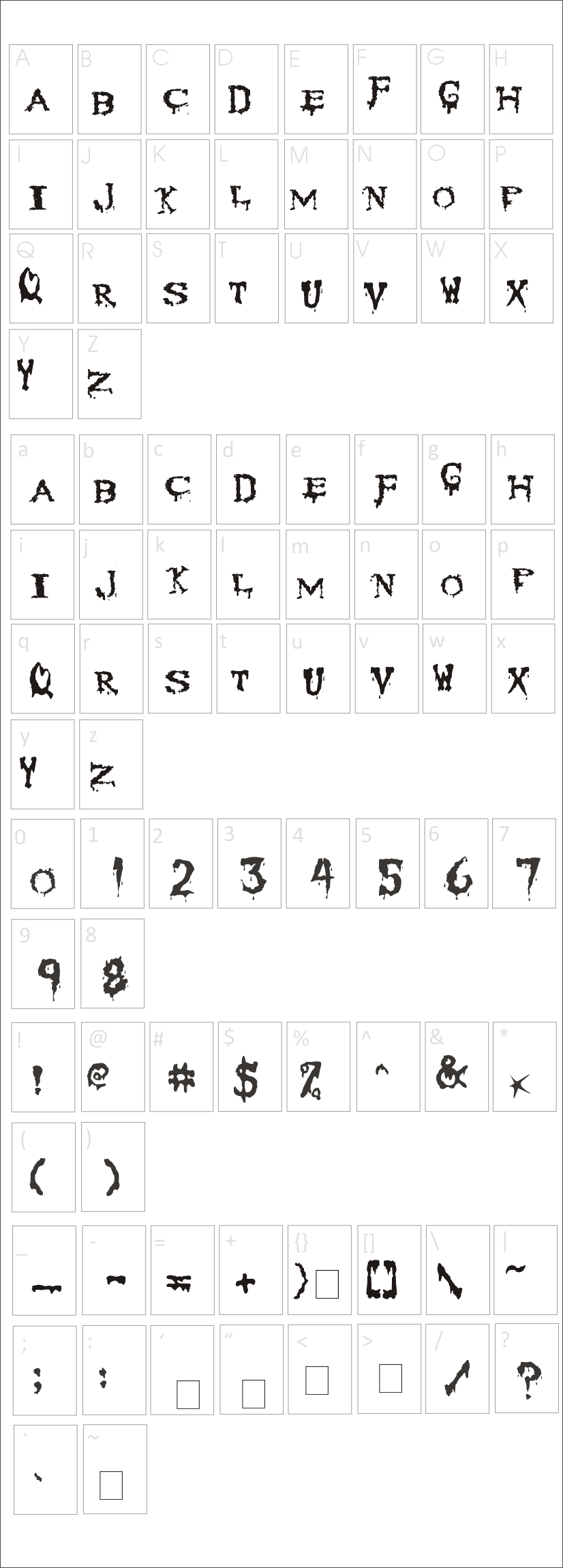
Cannibal Corpse Font is a blood-curdling typeface inspired by the legendary death metal band Cannibal Corpse. Known for its grotesque, distorted look, this font perfectly captures the brutal, horror-infused aesthetic of the band’s artwork and music. If you’re working on projects that require a raw, aggressive, and unapologetically dark feel, this font is the ideal choice.
Key Features of Cannibal Corpse Font:
- Gory, Distressed Design: The Cannibal Corpse Font mimics the decayed, blood-soaked look of the band’s logo, featuring jagged, splattered letterforms. Its terrifying appearance is perfect for horror, metal, or anything on the extreme side.
- Death Metal Vibe: This typeface reflects the energy and aesthetic of extreme metal, especially death metal and grindcore, and is perfect for any project linked to the metal music scene.
- High Impact: The rough, decayed edges and chaotic design make this font a standout in any design. It grabs attention and communicates an aggressive, raw feeling.
- Versatile for Dark Themes: Whether you’re working on posters, album covers, or apparel, this font adapts well to any design where horror, darkness, or aggression are central themes.
Uses for Cannibal Corpse Font:
- Metal Band Logos and Albums: This font is the go-to choice for creating album covers, band logos, and promotional material for death metal, black metal, or any subgenre of extreme music.
- Horror-Themed Designs: From movie posters to Halloween event flyers, this font perfectly embodies the terror and gore that horror lovers seek.
- Merchandise: Use this font to create t-shirts, jackets, hats, and other merchandise that appeals to fans of horror, heavy metal, and dark art.
- Concert Promotions: Promote underground metal shows or horror-themed events with flyers, posters, and banners that need a brutal, hard-hitting aesthetic.
- Extreme Tattoo Designs: This font also works for dark, gothic, or metal-inspired tattoo designs, adding a raw edge to your body art.